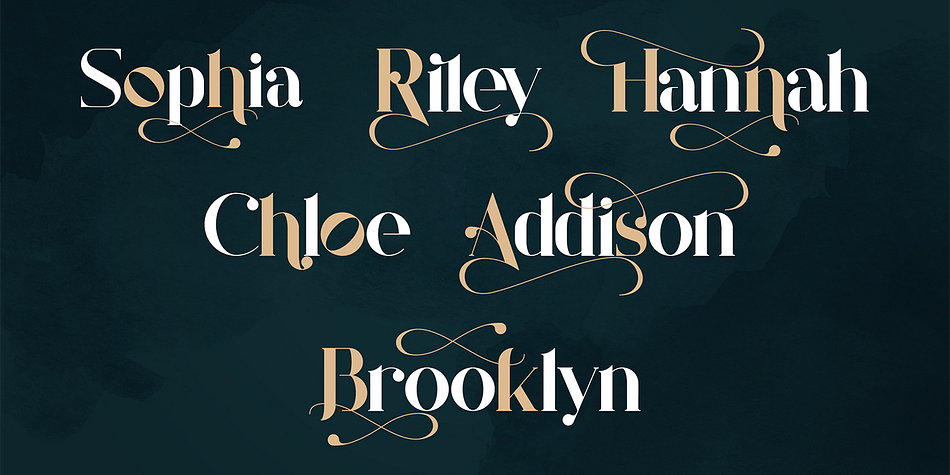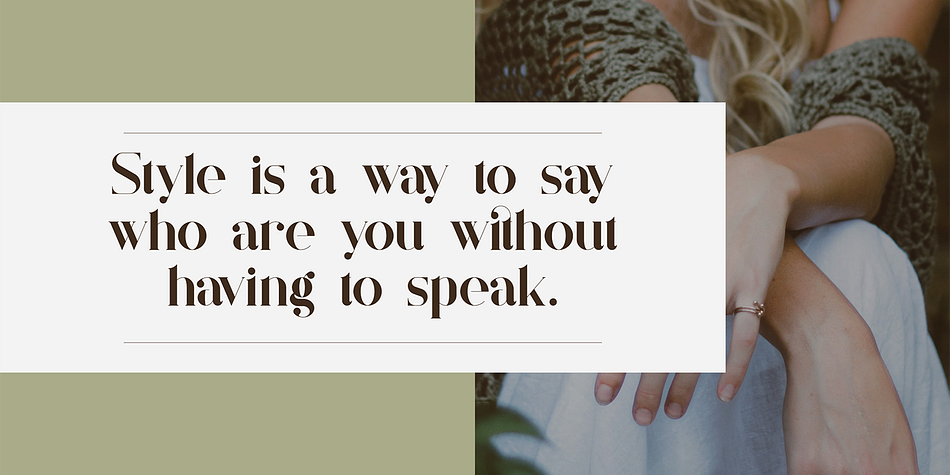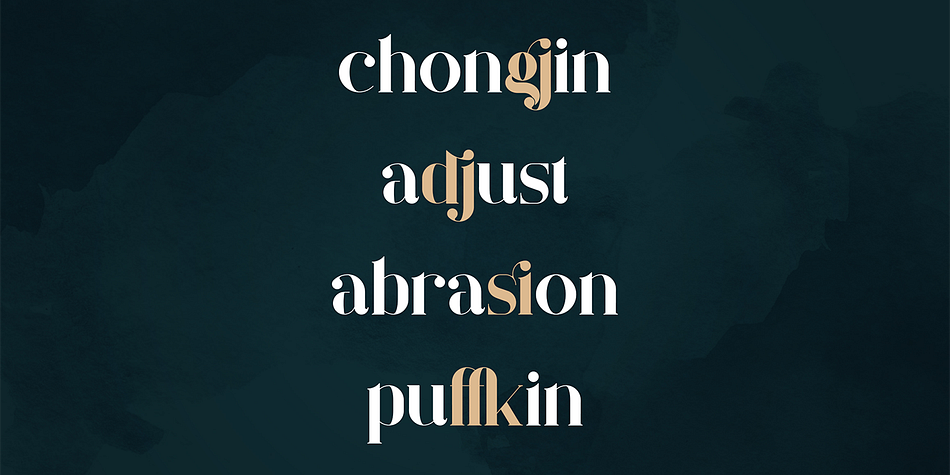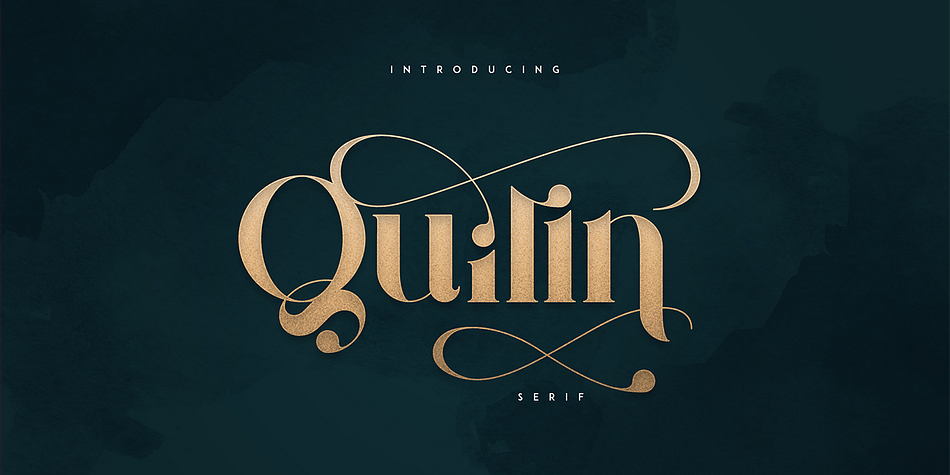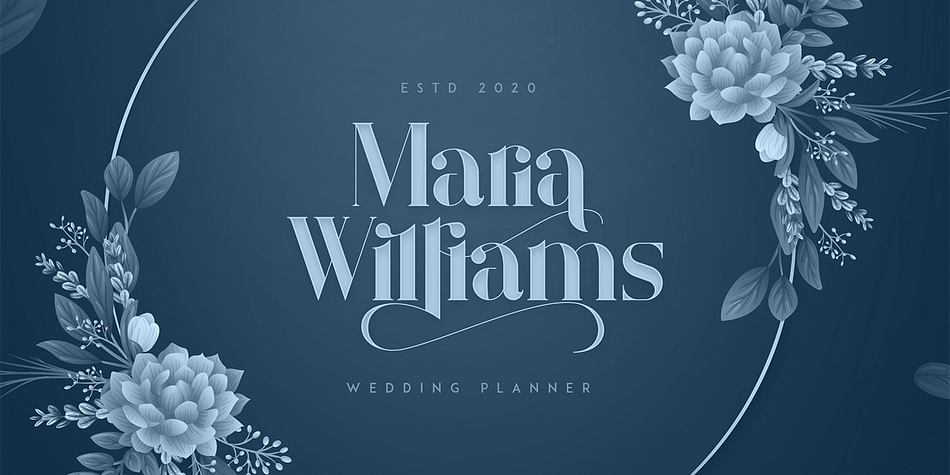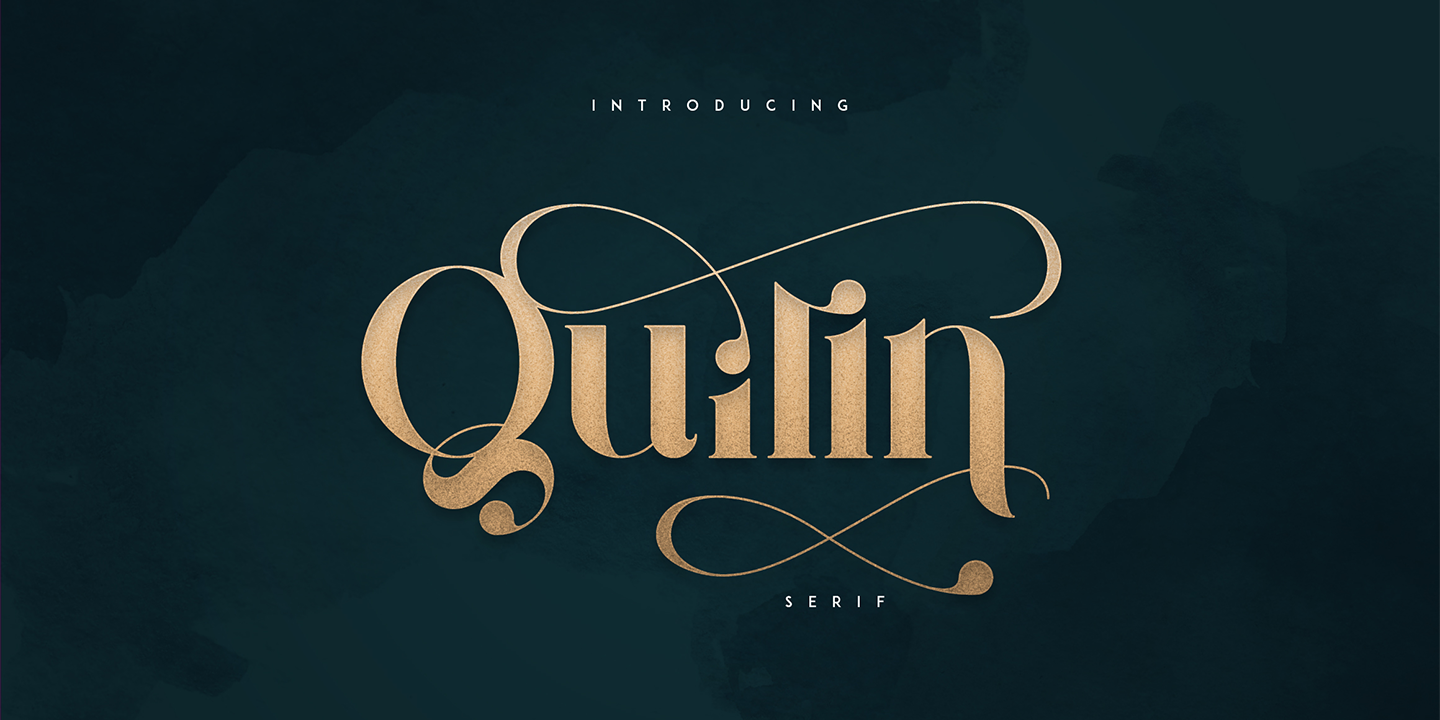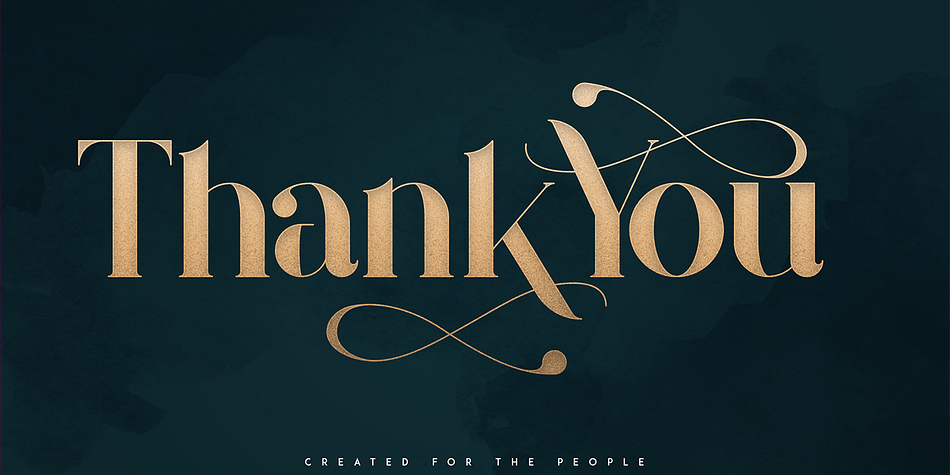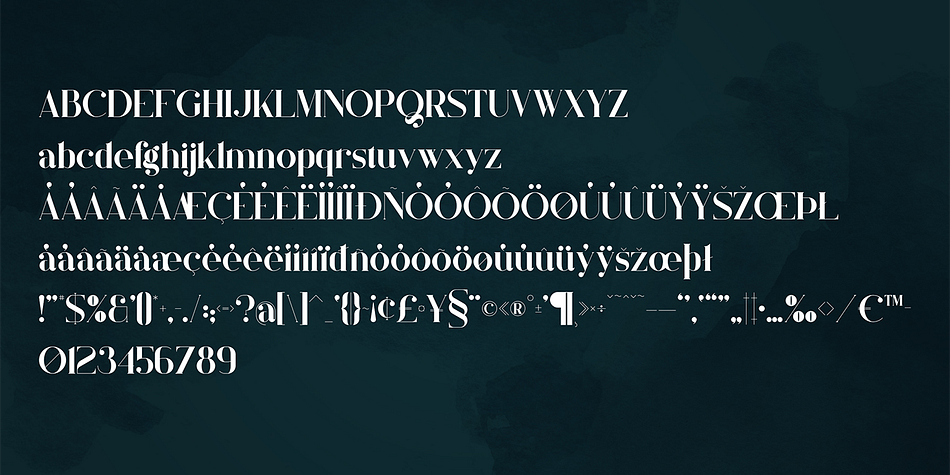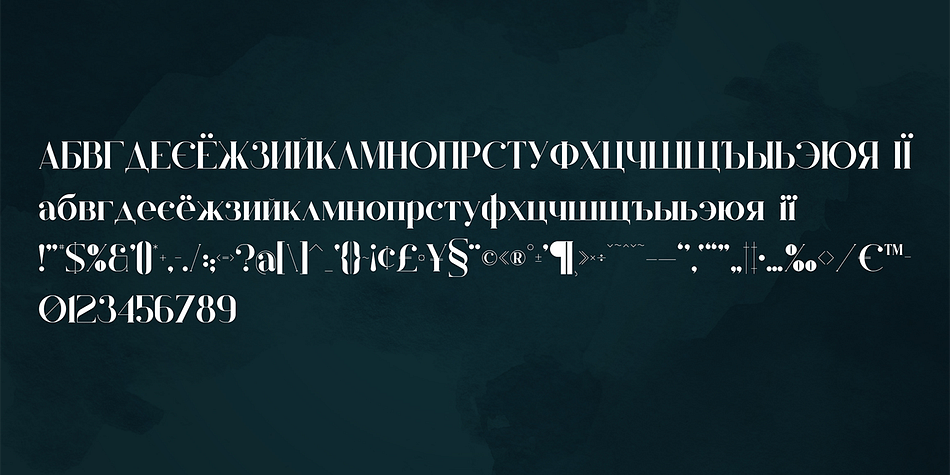
Quilin Serif
Quilin Serif is a display serif font published by VPcreativeshop.
Introducing Quilin Serif - latin and cyrullic
Quilin is luxury, vintage typeface loaded with alternate glyphs, ligatures and multilingual support.
It’s a very versatile font that works great in large and small sizes.
Quilin is perfect for branding projects, home-ware designs, product packaging, magazine headers - or simply as a stylish text overlay to any background image.
Uppercase, lowercase, numeral, punctuation & Symbol
Alternate glyphs
Ligatures
Multilingual support
Cyrillic support